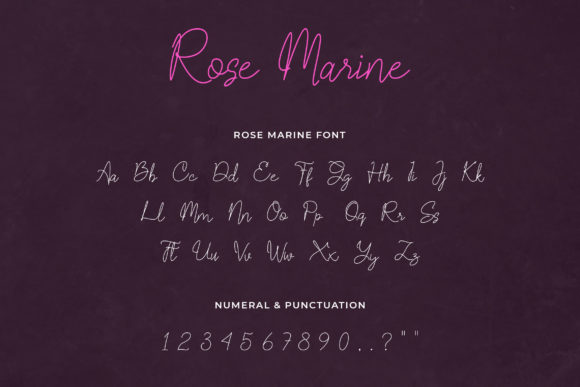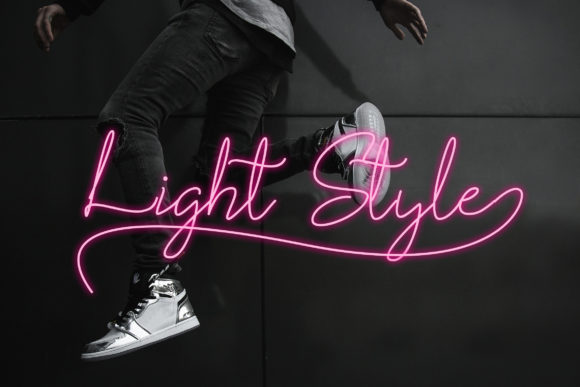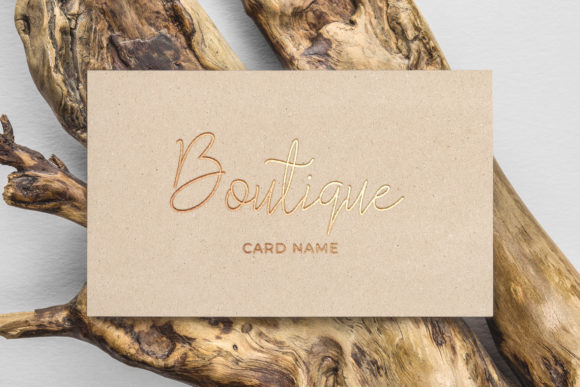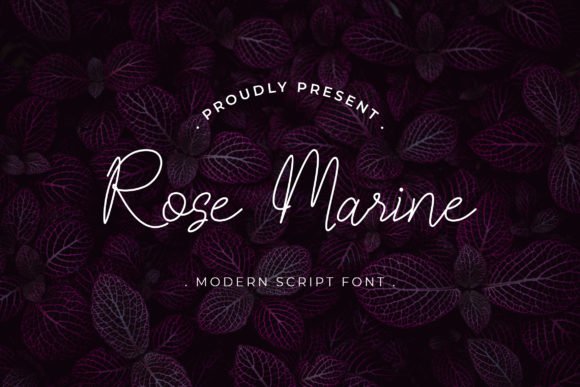
Introduction to Rose Marine Font
Rose Marine is an elegant script font, that features a very delicate and classy look.
Not too thin and not too thick, balanced and varied, this font was designed to enhance the beauty of your projects .
Key Features of Rose Marine Font
Why Choose Rose Marine Font?